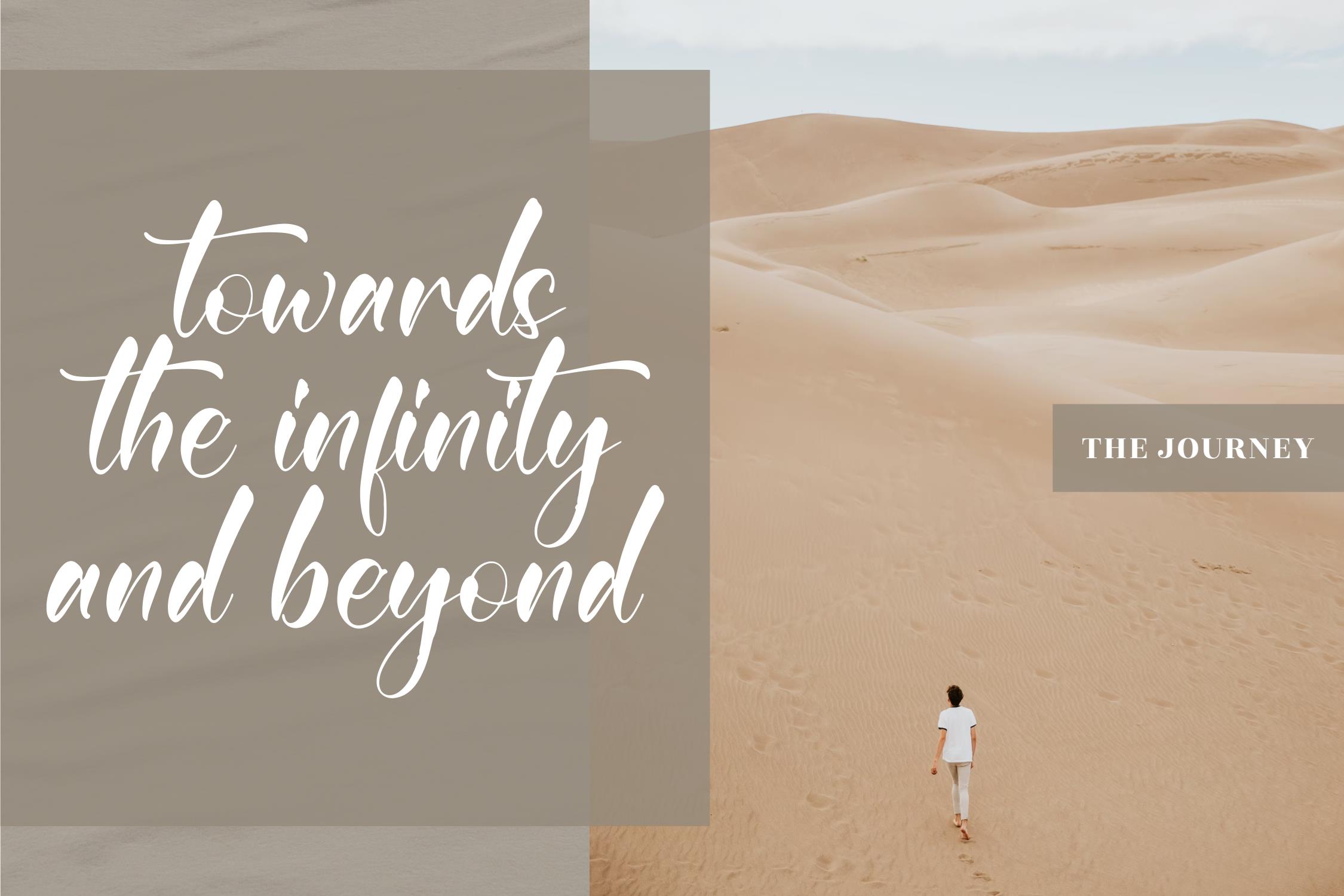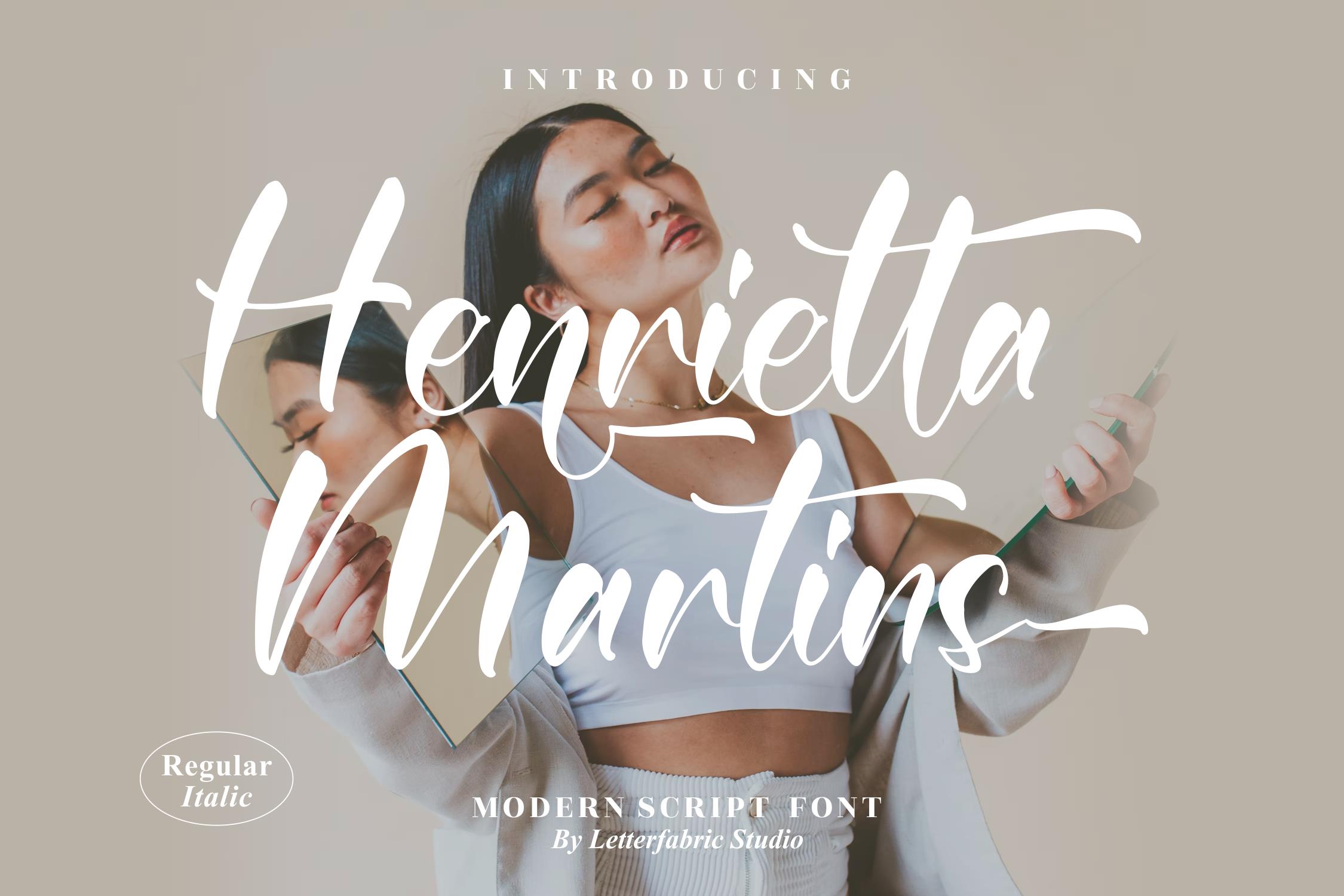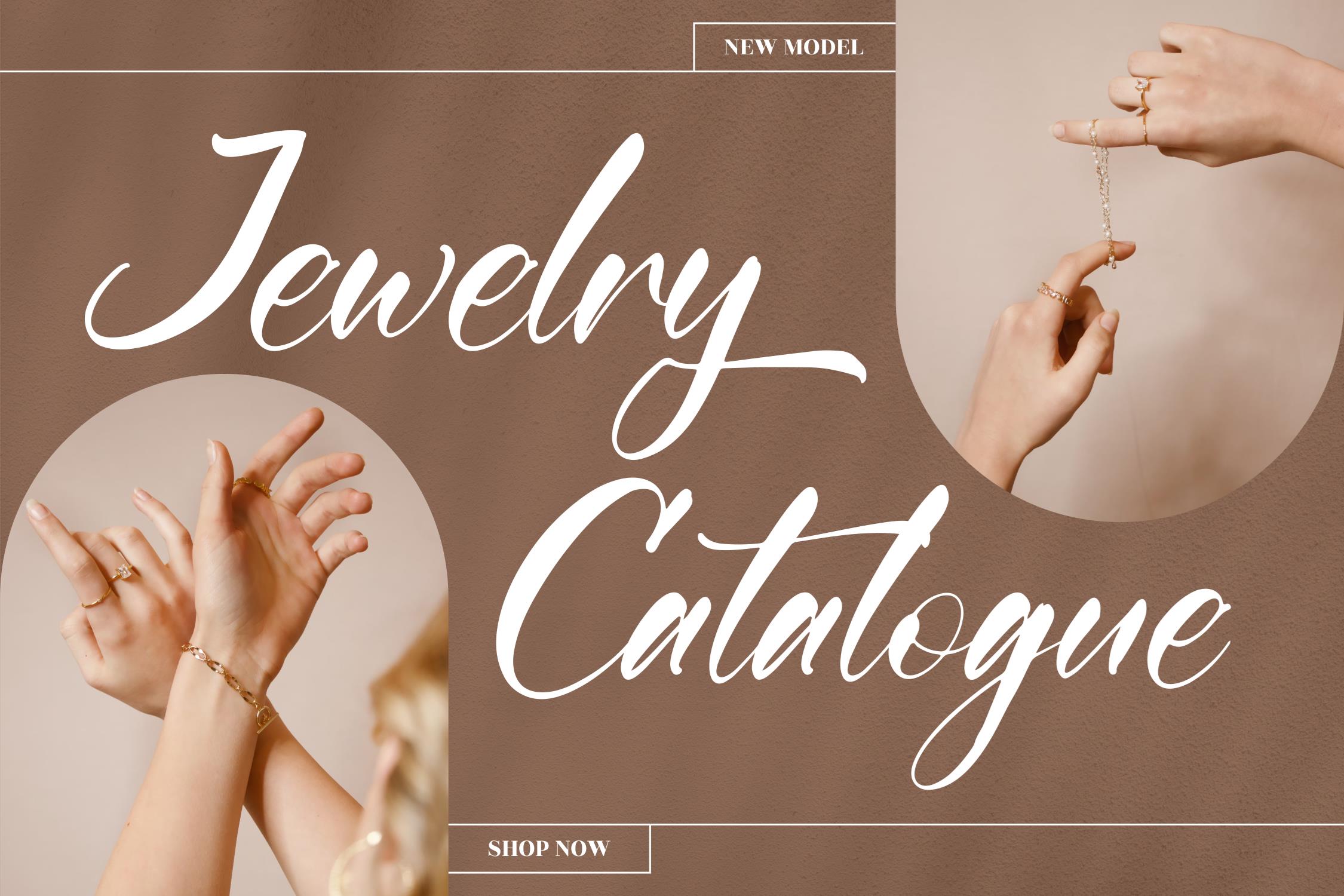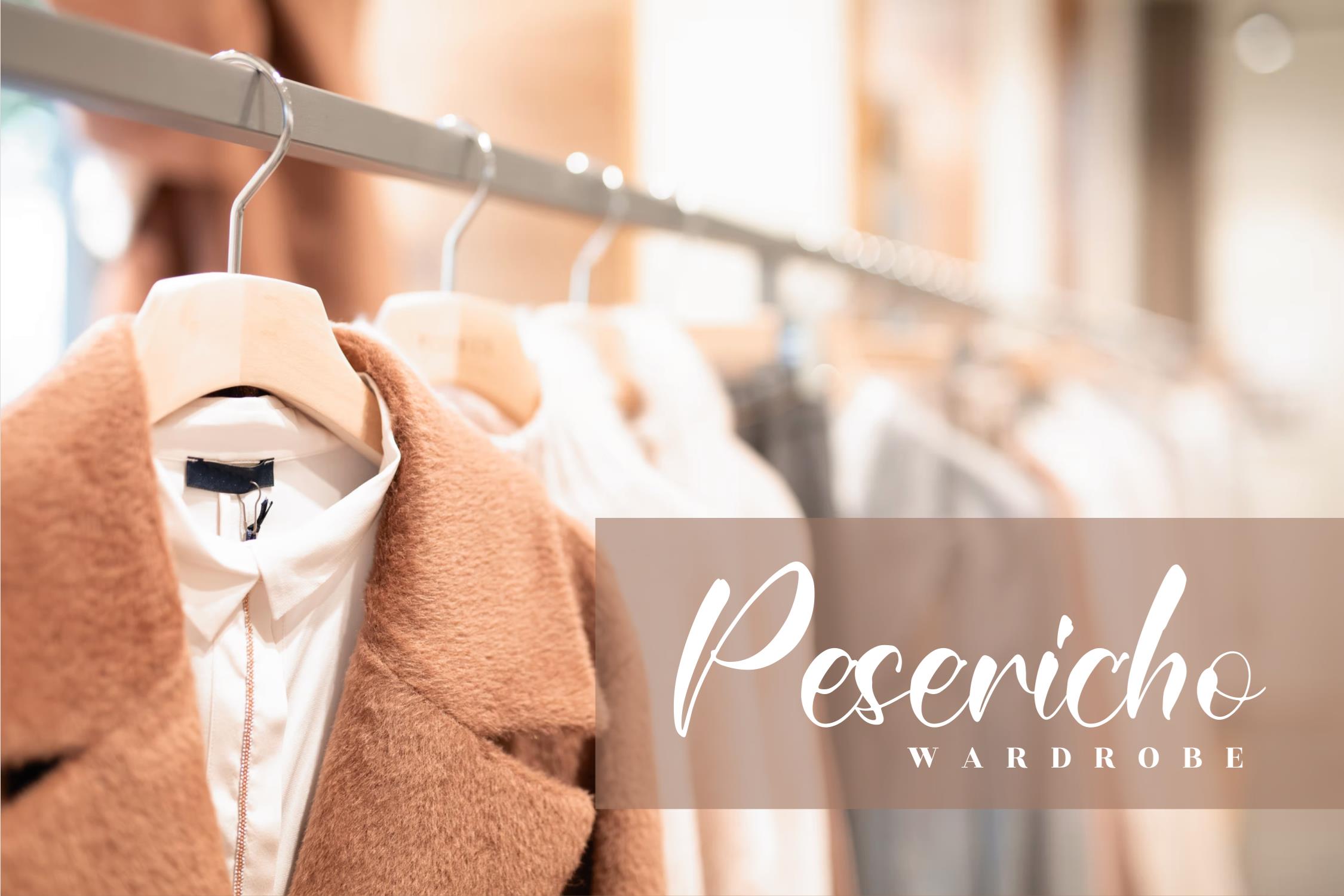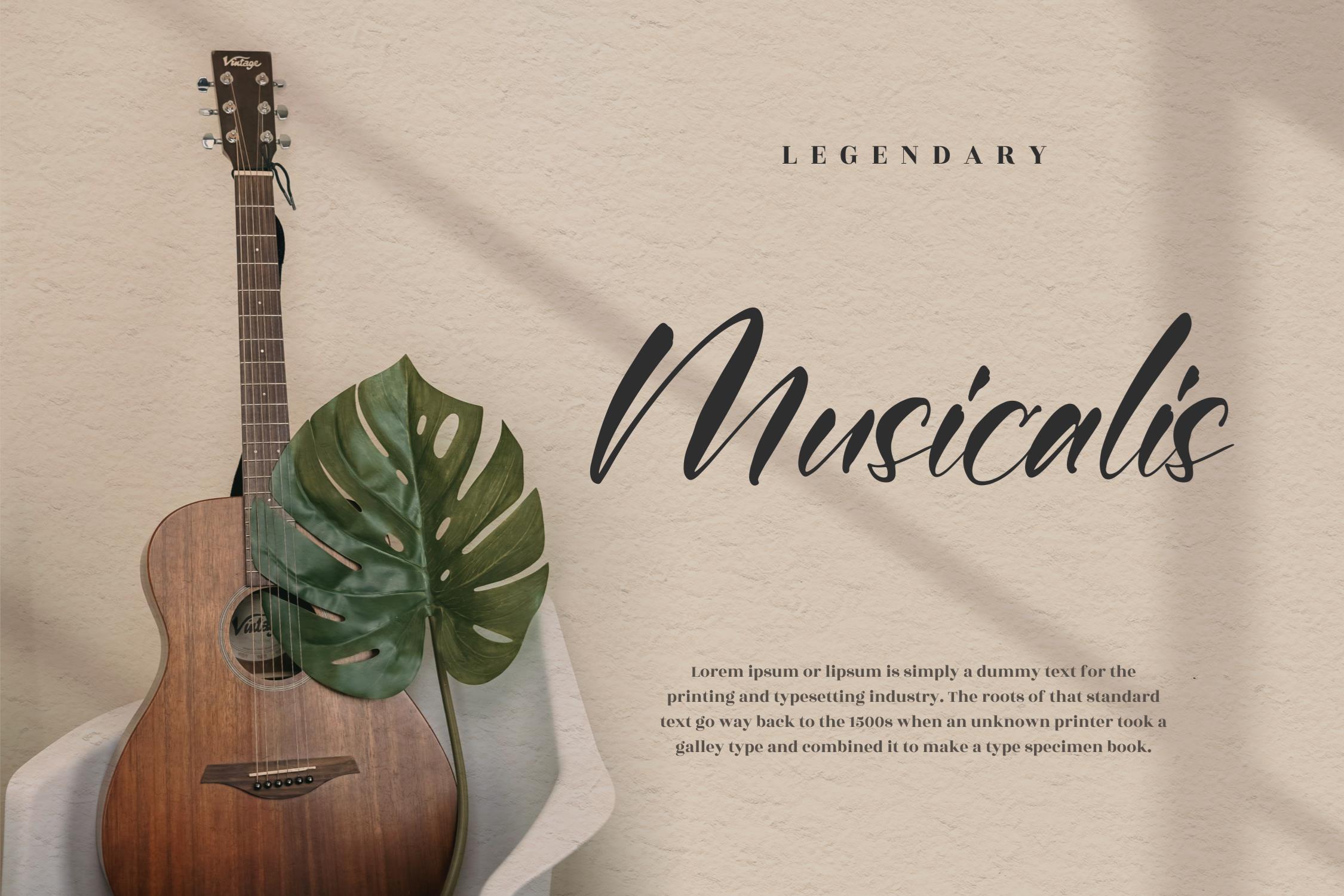
Henrietta Martins Script Font
This is a beautiful script font, suitable for any projects such as: logos, branding projects, homeware designs, product packaging, mugs, quotes, posters, shopping bags, t-shirts, book covers, name card, invitation cards, greeting cards, label, photography, watermark, special events, and all your other lovely projects that need a beautiful script taste.